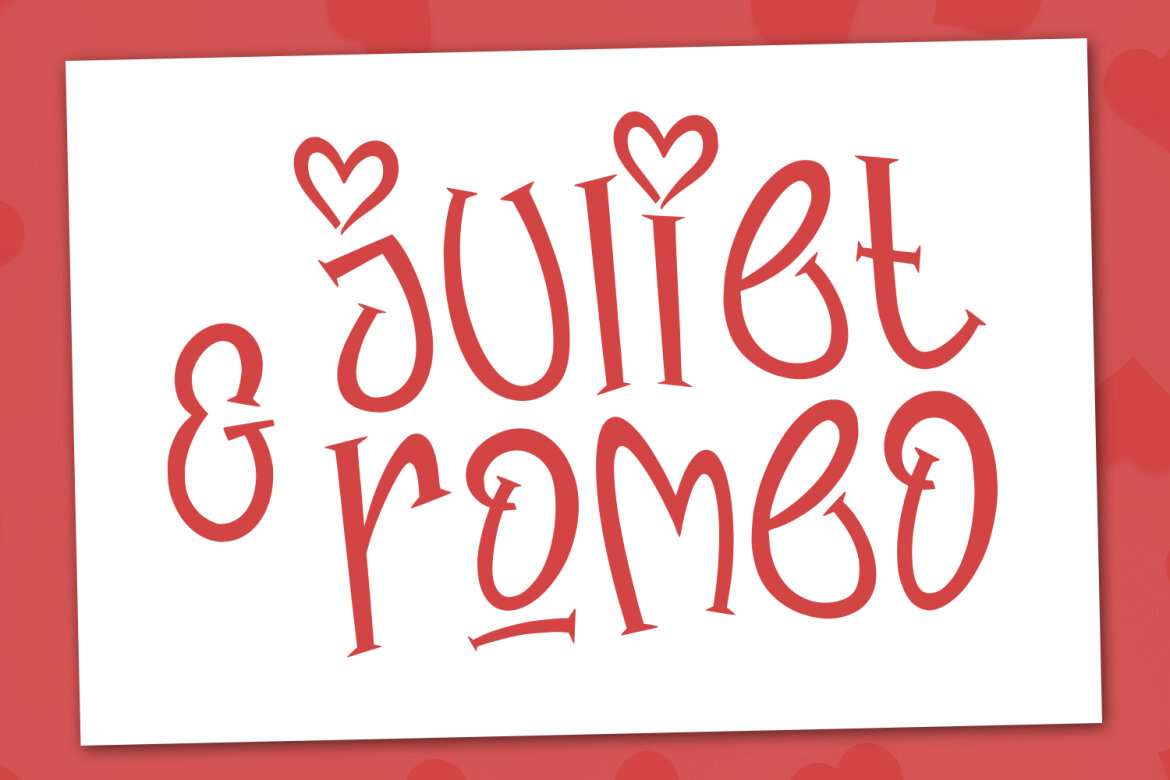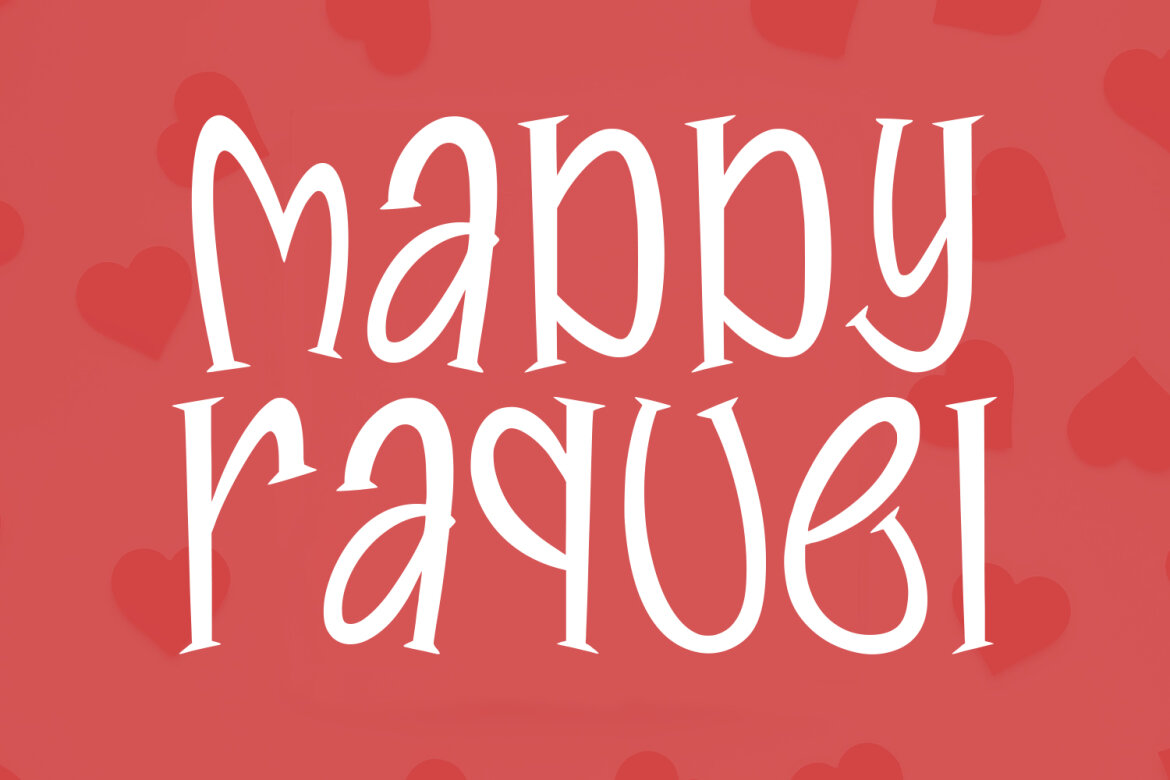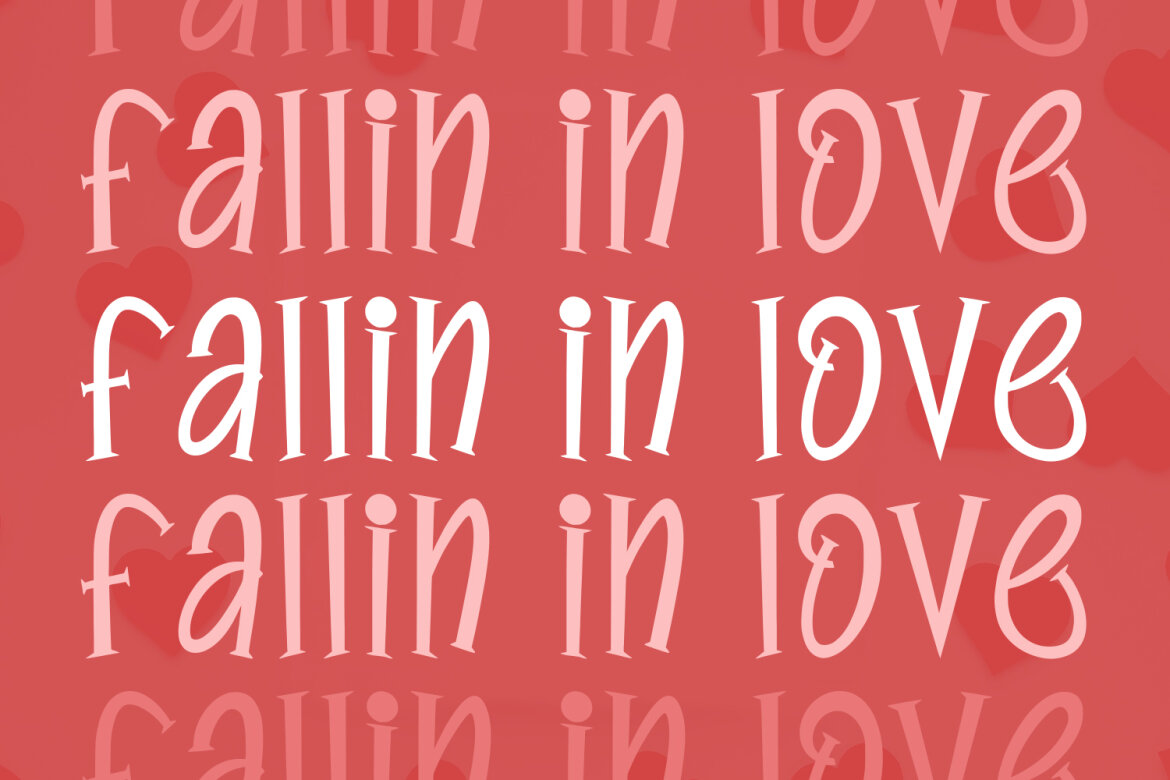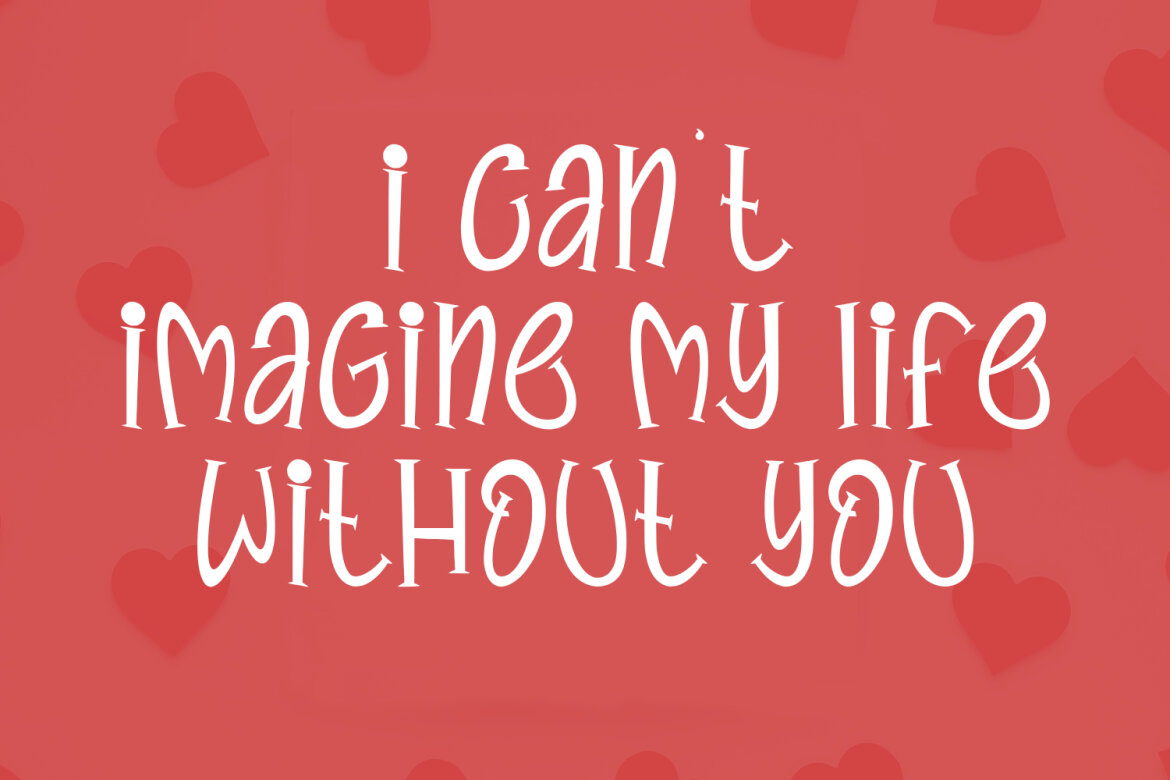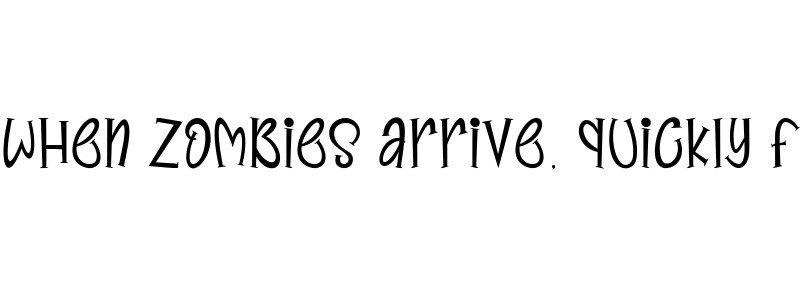
Lovienz Display FREE Font
Lovienz display font. With bold tall sharp edge stroke, fun character with a bit of ligatures and alternates. To give you an extra creative work. Lovienz display font support multilingual more than 100+ language. This font is good for logo design, Social media, Movie Titles, Books Titles, a short text even a long text letter and good for your secondary text font with sans or serif. Make a stunning work with Lovienz display font.